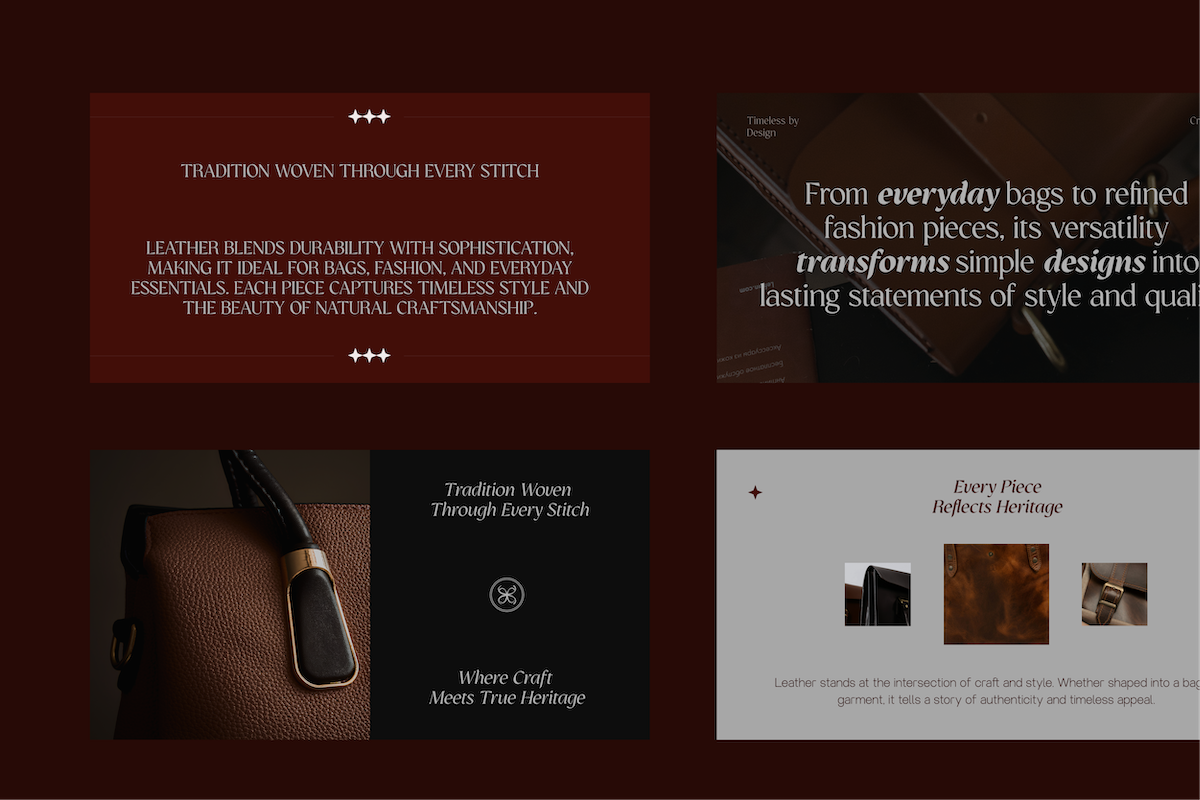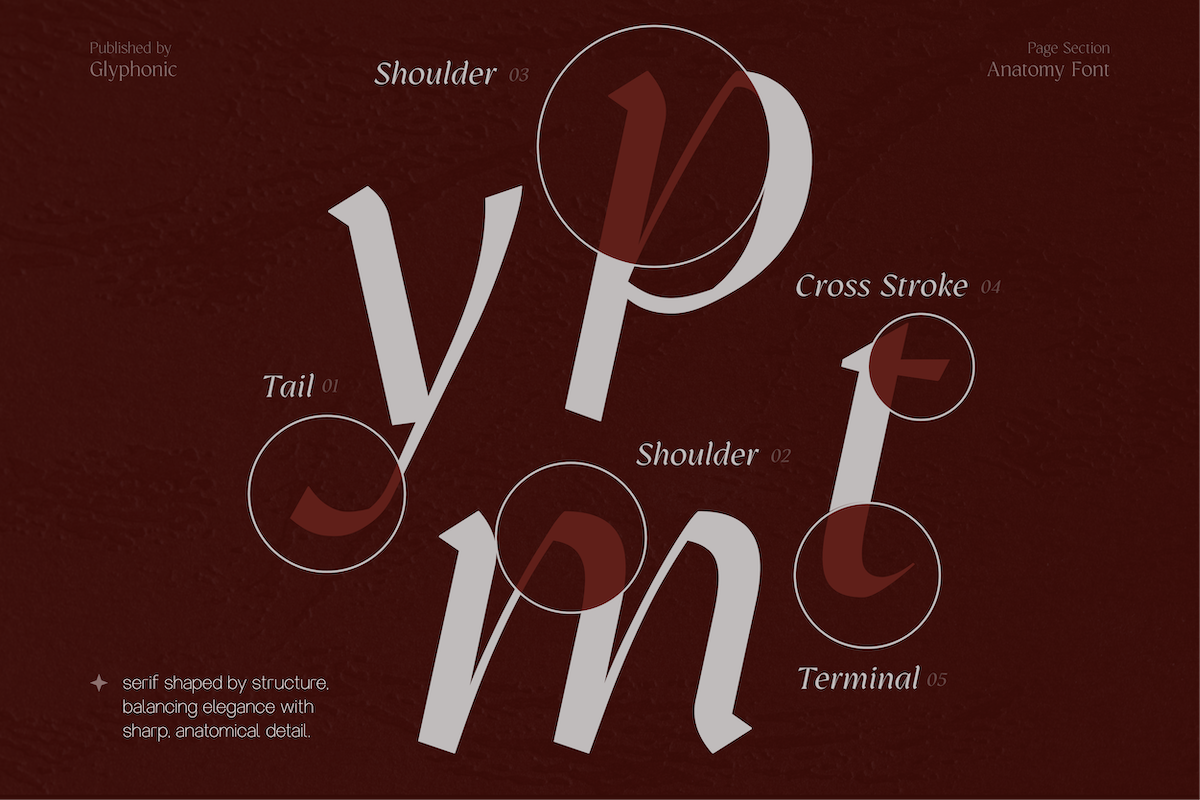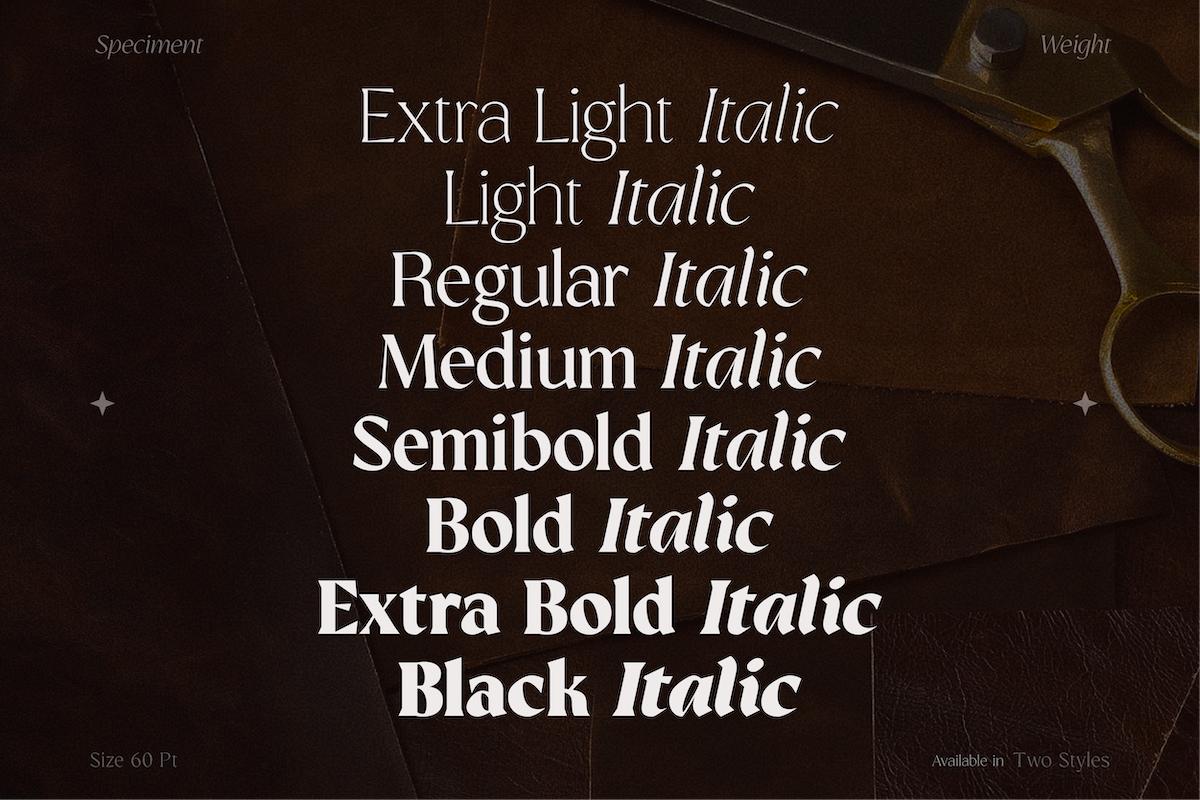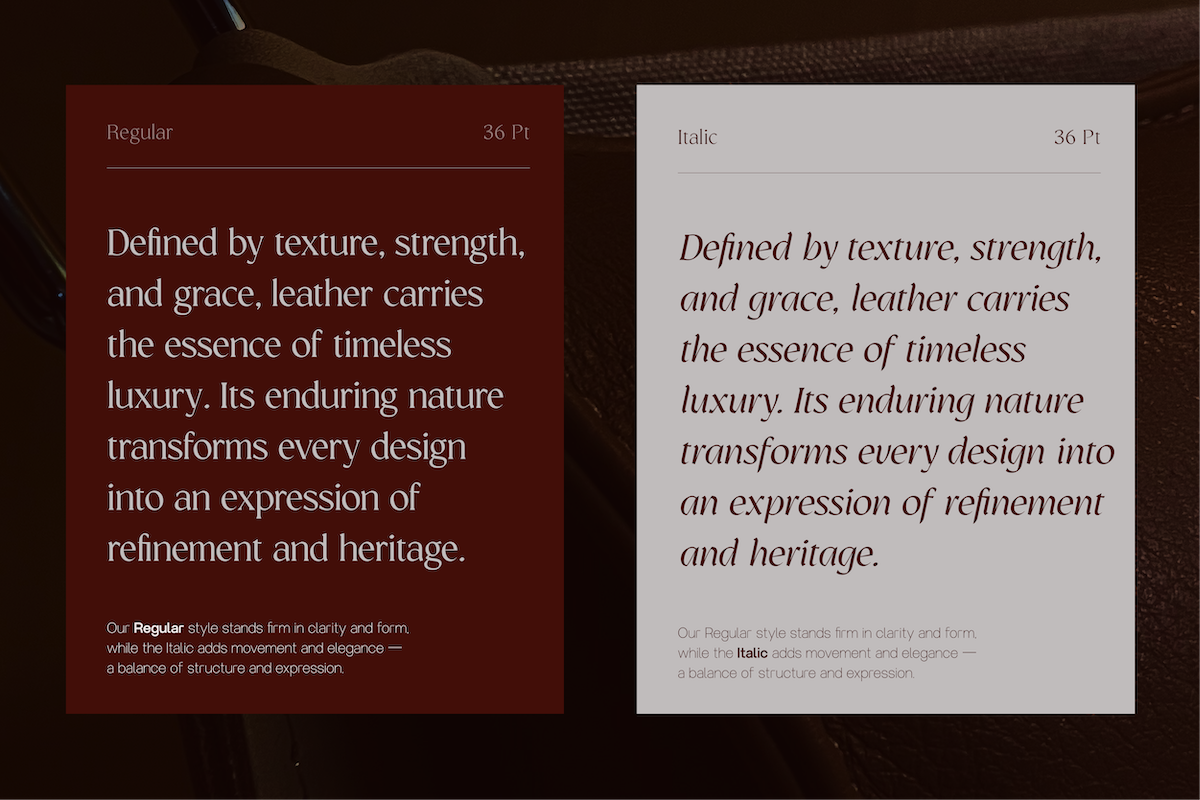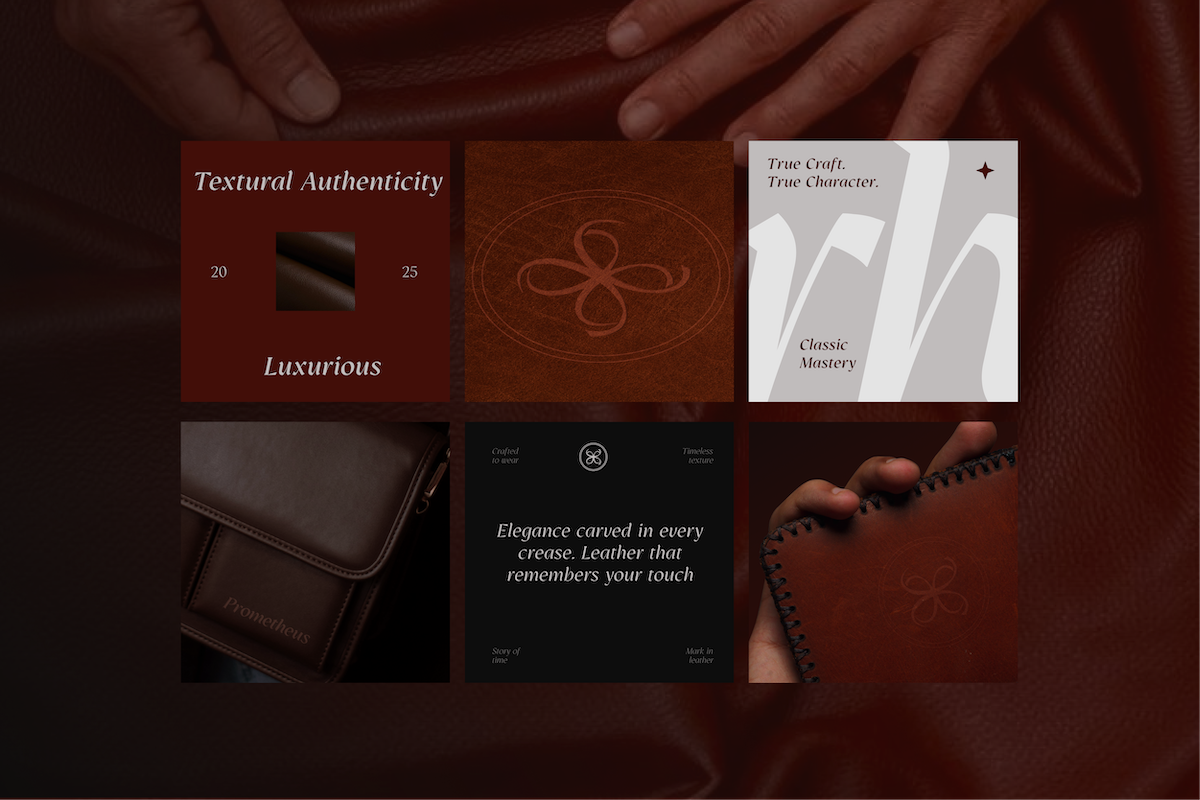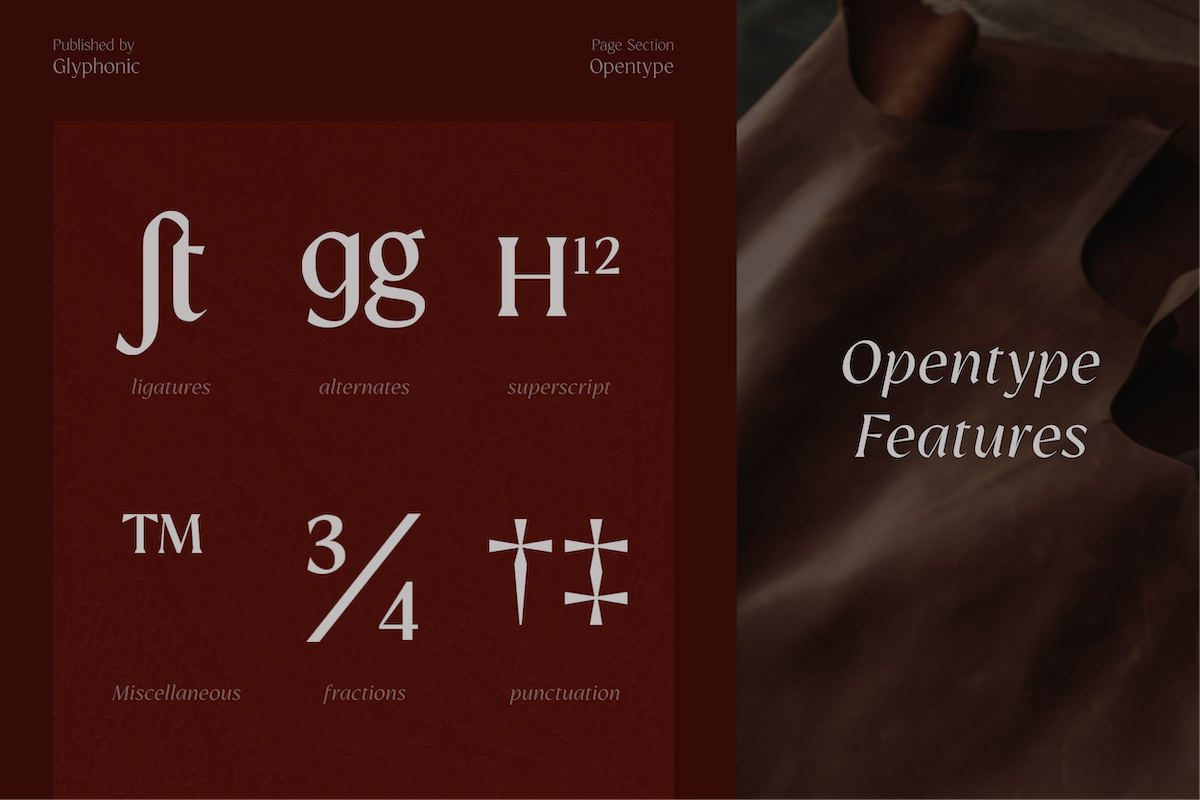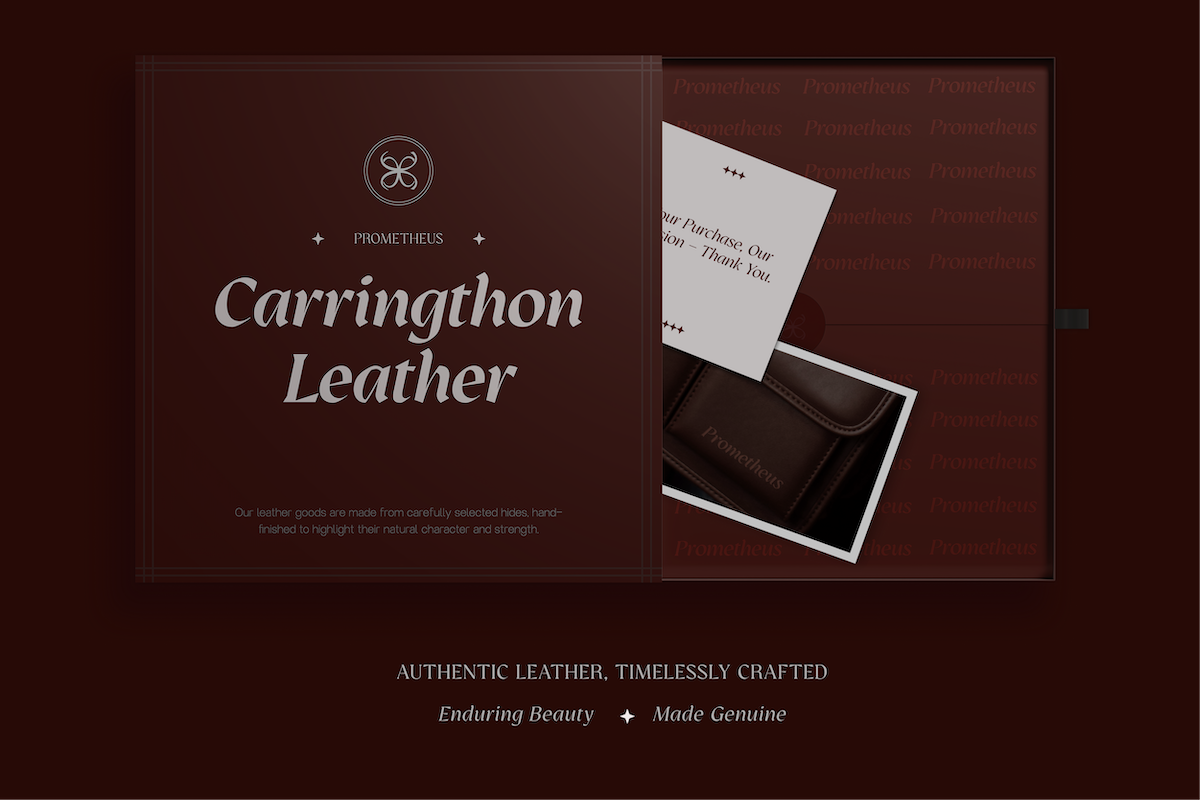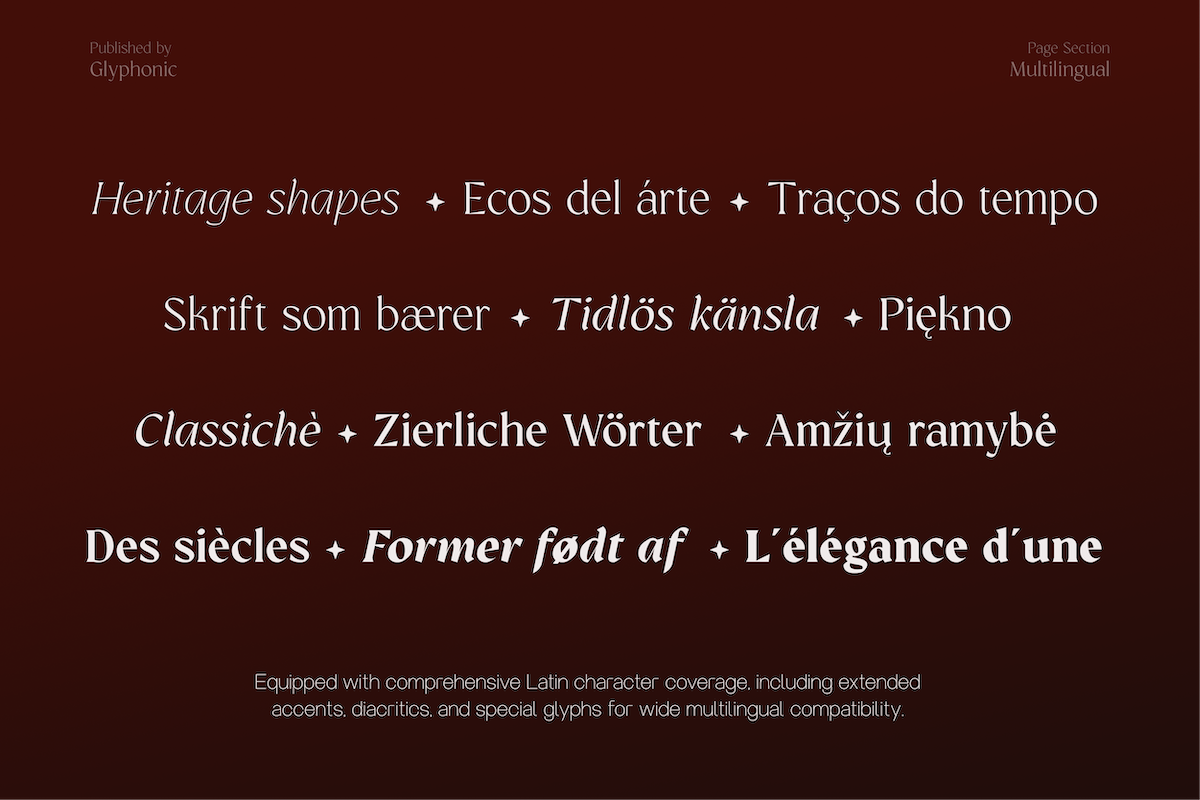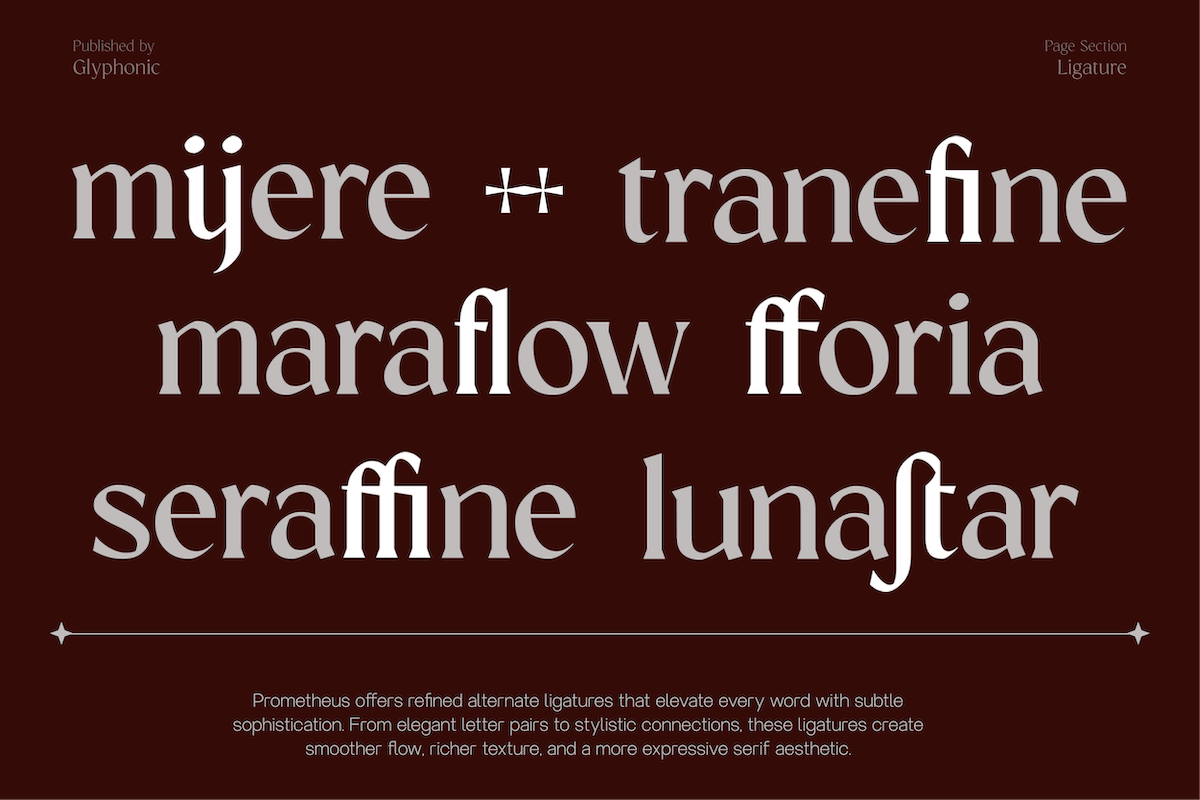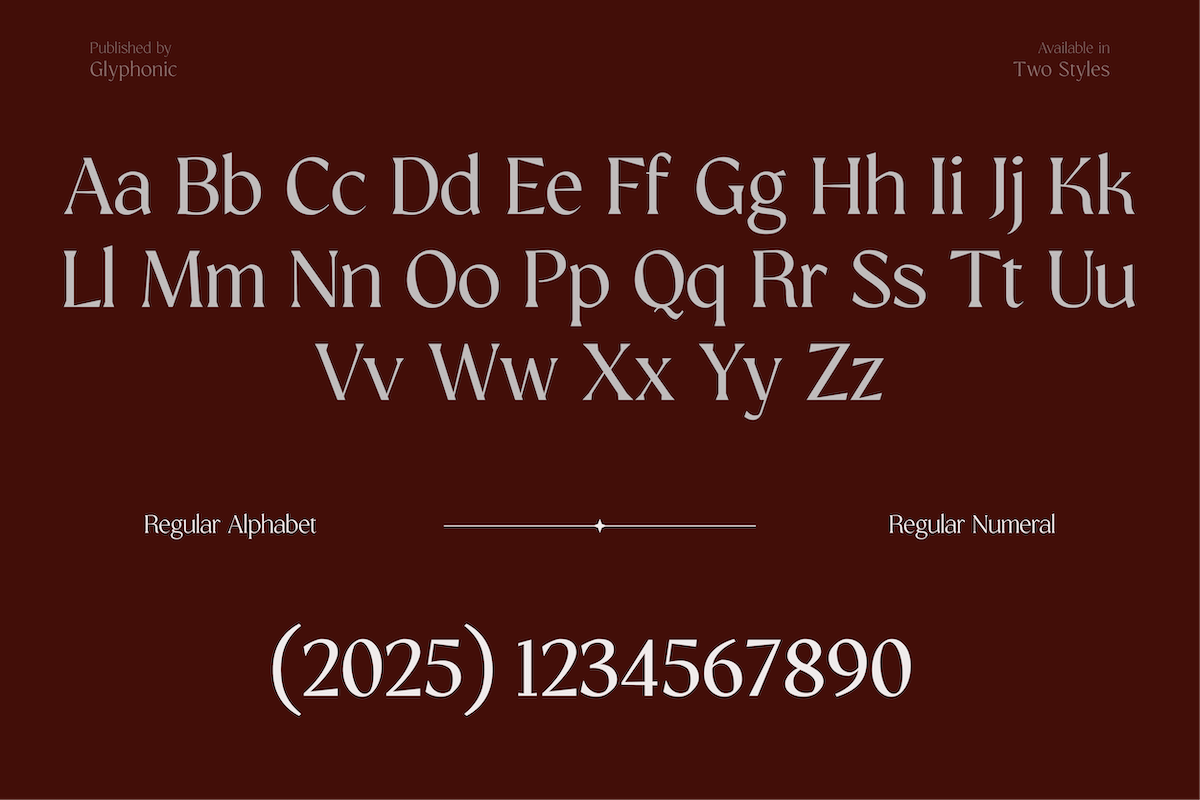
GC Prometheus – Serif Family
GC Prometheus – Serif Family is a refined serif typeface designed to bring timeless elegance, sharp detail, and professional presence to any visual project. Blending classical influences with modern precision, this type family delivers strong readability, balanced proportions, and a polished aesthetic suitable for both display and text settings.
Crafted to offer versatility without losing its distinct character, GC Prometheus excels in branding, editorial design, packaging, luxury identity, and sophisticated visual communication. Each letterform is shaped with subtle contrast and clean serif structures, creating a harmonious flow that elevates your typography with grace and authority.
- Elegant Serif Detailing
- Multilingual Support (170+ Languages)
Bring heritage, beauty, and refined sophistication to your design with GC Prometheus – Serif Family.